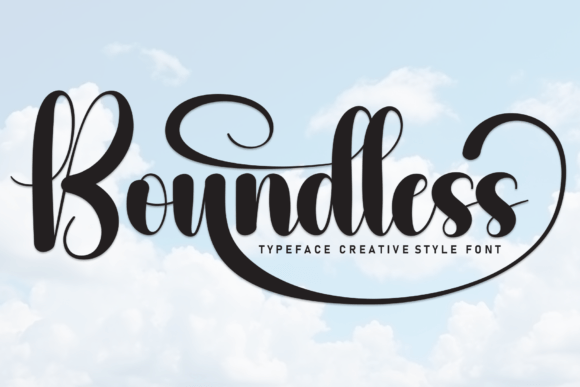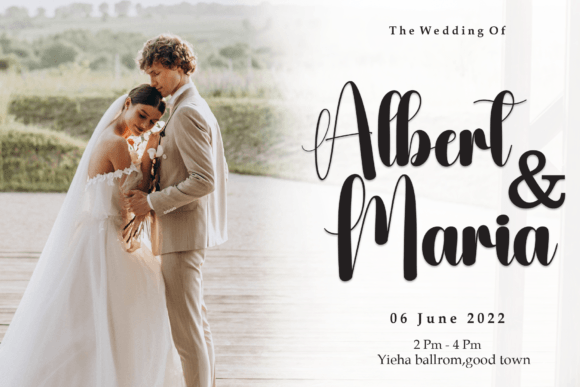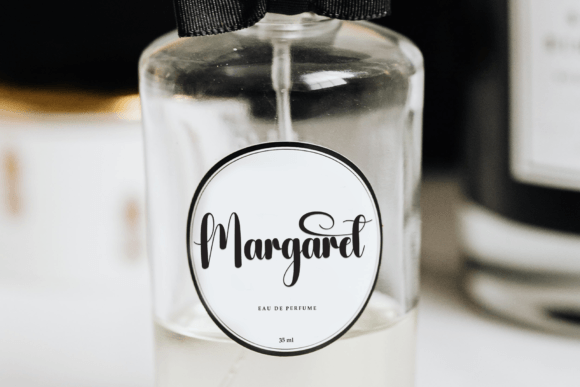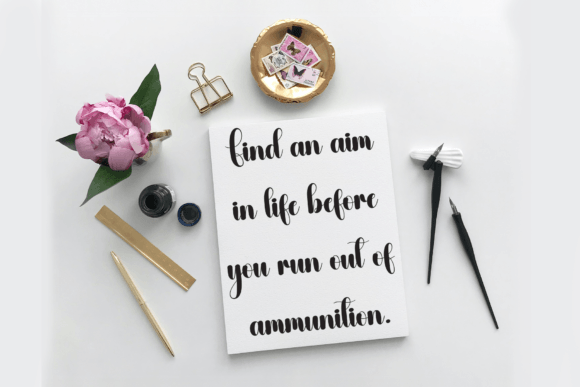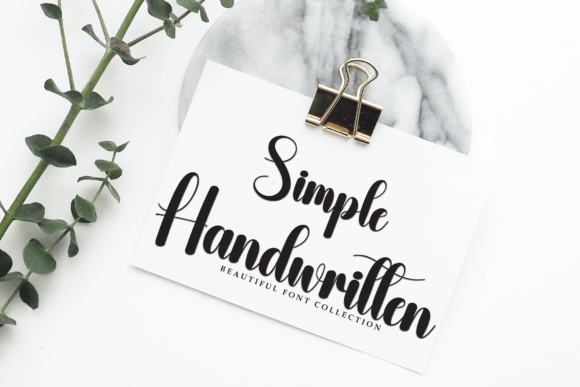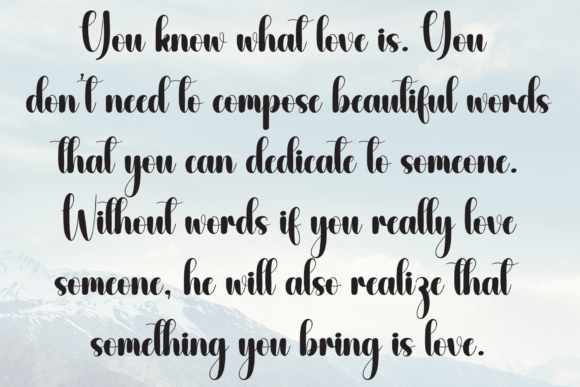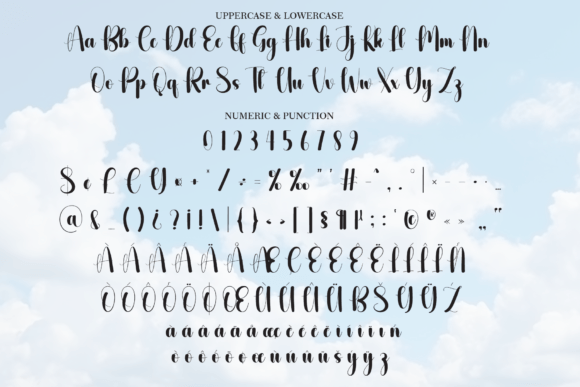
Unlock the Power of Handwritten Elegance
There’s nothing quite like the thrill of creating something from scratch, when an idea sparks and your imagination runs wild. For designers, that moment is a siren call to bring their vision to life. But sometimes, the right tool can make all the difference. That’s where the Boundless Font comes in – a masterfully designed handwritten font that combines classic calligraphy with modern flair.
With the Boundless Font, you’ll have the perfect companion to elevate your projects to new heights. Whether you’re crafting a wedding invitation, designing a logo, or creating a social media campaign, this font is sure to bring a touch of sophistication and personality to your work. Its versatility and timeless charm make it a valuable addition to any designer’s toolkit.
Boundless Font Key Features
- Character Count: The font features a vast character set, including over 1,200 glyphs, making it suitable for a wide range of languages and applications.
- Unique Characteristics: The font boasts a unique blend of modern and vintage elements, featuring intricate details and subtle flourishes that set it apart from more traditional fonts.
- Language Support: Boundless Font includes comprehensive language support, covering a wide range of languages, including Latin, Cyrillic, Greek, and more.
Designer Review: Boundless Font
As a designer, I was excited to dive into the Boundless Font, but my expectations weren’t entirely met. Let’s break it down.
- Unique blend of modern and classic styles – Boundless Font successfully combines the best of both worlds.
- High legibility – The font is incredibly easy to read, making it perfect for body text and long-form content.
- Wide range of languages supported – This is a great feature for designers working on global projects.
- Limited font weights – While the font is legible, it’s a bit restrictive in terms of font weights, which can limit its use in certain designs.
- Not ideal for headlines – The font’s subtlety makes it less suitable for bold headlines and titles.
- Some characters may not render correctly – I experienced a few instances where certain characters didn’t display as expected.
While Boundless Font has its strengths, it falls short in a few areas. It’s a solid choice for body text and global projects, but may not be the best fit for designs that require bold headlines or a wide range of font weights.
Boundless Font Practical Application Guide
Tips for Getting the Most Out of Boundless Font
Some tips for using Boundless Font effectively include:
- Using the font in conjunction with bold or italic styles to add emphasis.
- Adjusting the font size to ensure readability.
- Pairing the font with a contrasting color to improve visibility.
Boundless Font is commonly used in:
- Logo design.
- Business cards.
- Brochures and flyers.
Alternatives to Boundless Font for Designers
Playfair Display is an elegant, high-end serif font ideal for luxury brands, wedding invitations, and fine art projects. It features intricate details and ornate flourishes, making it perfect for creating a sophisticated and refined look.
Comparison to Boundless Font: While Boundless Font is a modern sans-serif font, Playfair Display is a traditional serif font with a more formal and luxurious feel. Playfair Display is better suited for projects that require a sense of sophistication and elegance, whereas Boundless Font is ideal for modern and minimalist designs.